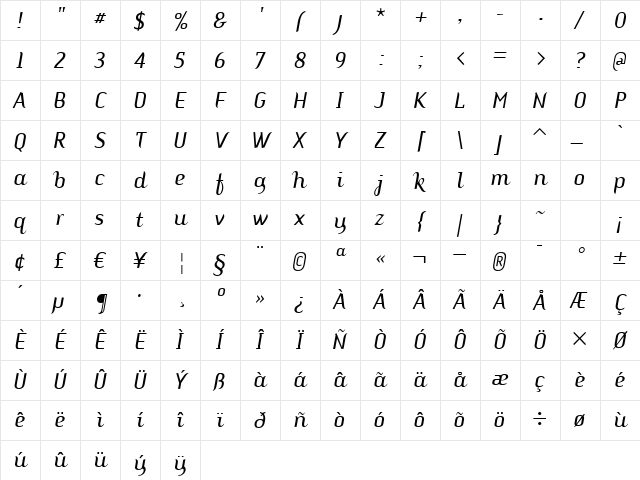
ARSTemper ScriptPlain Free Font
ARSTemper ScriptPlain
Complete ARSTemper ScriptPlain glyph index. Displaying only characters natively supported by ARSTemper ScriptPlain font.
Design Context for ARSTemper
ARSTemper flows with the natural rhythm of handwritten lettering, making it ideal for designs that call for warmth and personal expression.
Font Pairing: Combine ARSTemper with a simple geometric sans for maximum contrast - the tension between flowing curves and clean structure is a classic typographic pairing.
Pro Tip: Use ARSTemper for short runs of text - names, titles, or taglines. Extended body copy in script faces tires the eye quickly.